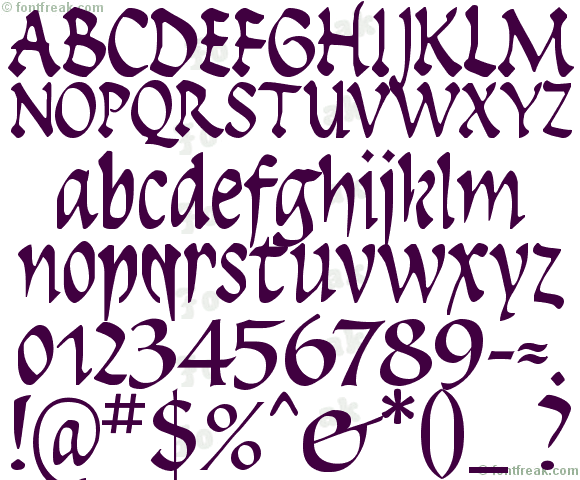
Insula
About Insula
Insula, crafted by Cybapee Creations, is a distinctive display font that captures attention with its unique character. This freeware typeface combines a modern aesthetic with playful elements, making it perfect for various creative applications. The font features a medium stroke weight and moderate contrast, which enhances readability while maintaining a whimsical feel. Its letterforms are well-spaced, allowing for easy legibility, and the decorative elements add an artistic flair that sets it apart from typical fonts.
The Insula font excels in several use cases, making it a versatile choice for designers and creators alike. It is particularly well-suited for wedding invitations, where its charming style can add a touch of elegance. Additionally, it works beautifully for movie posters, lending a contemporary vibe that can draw in audiences. Restaurant menus can also benefit from Insula’s playful characteristics, creating a welcoming atmosphere for diners. Furthermore, this font is ideal for branding projects, as it can help small businesses establish a memorable identity.
Targeted towards graphic designers, small business owners, and content creators, Insula offers an accessible option for those looking to make a statement without sacrificing quality. The font’s unique design allows for creative expression, making it a valuable addition to any designer’s toolkit.
What truly makes the Insula font stand out is its ability to balance whimsy and professionalism. Its distinctive style captures the essence of modern design while remaining approachable, allowing it to resonate with a wide audience. For anyone seeking a fresh typeface that embodies creativity and charm, the Insula font free download is an excellent choice for elevating any project.